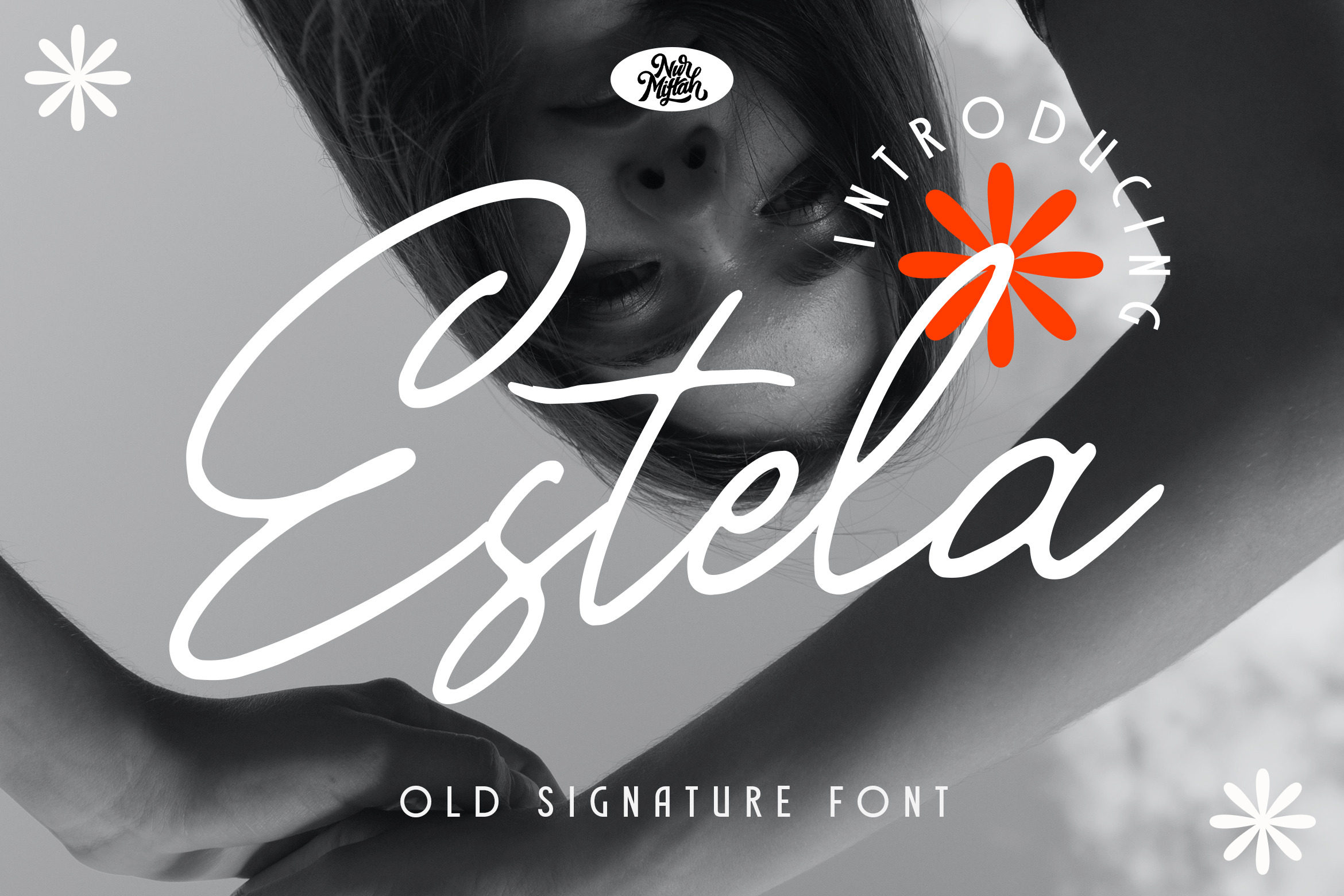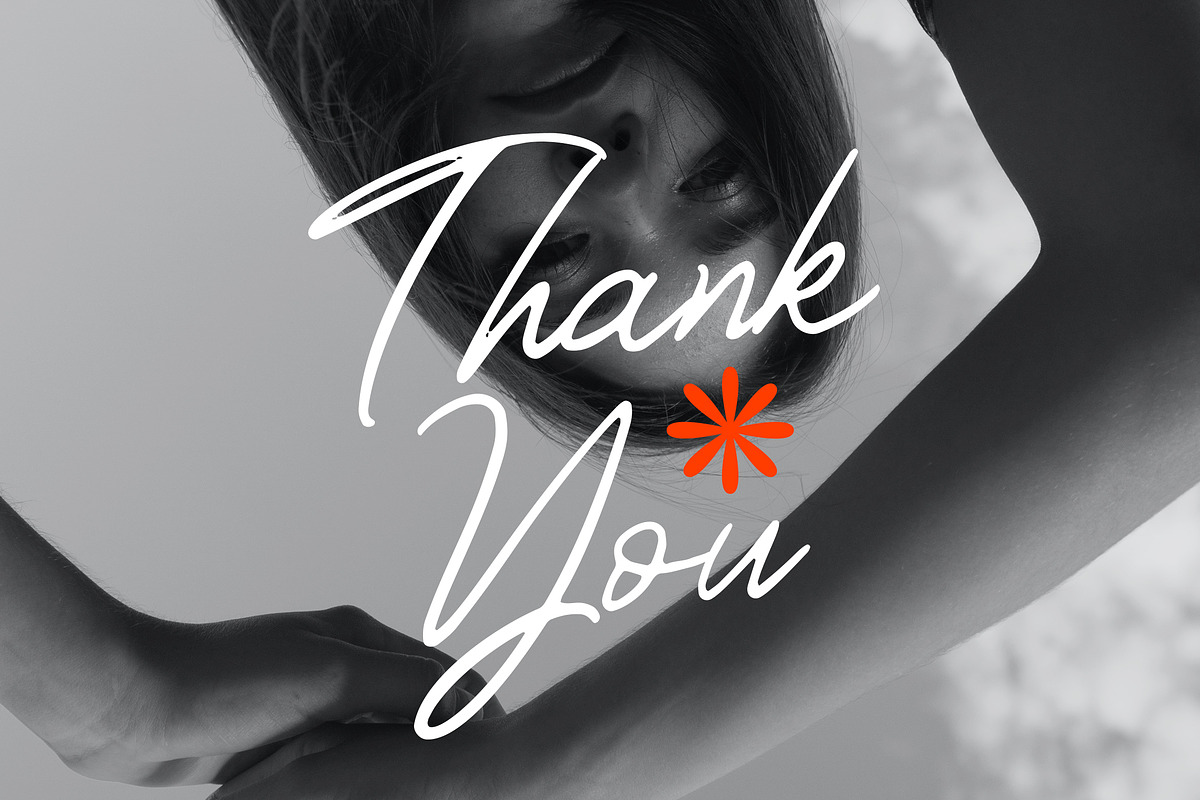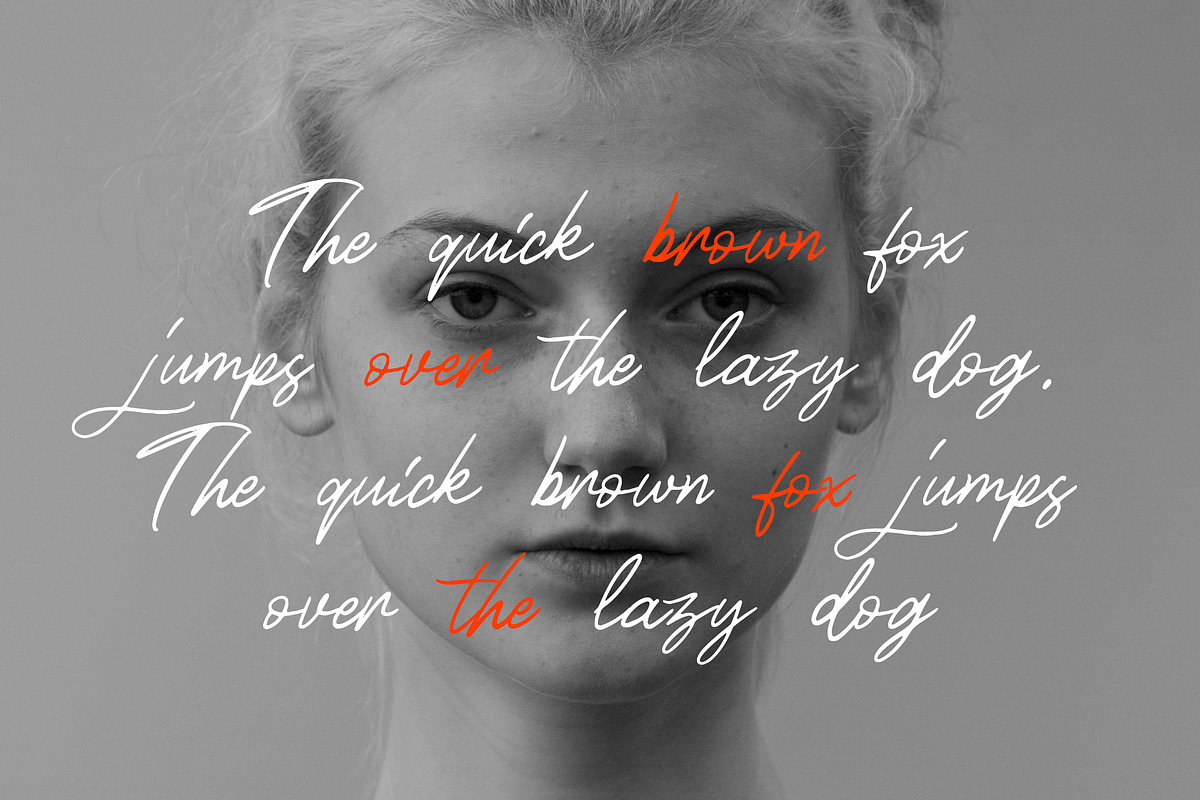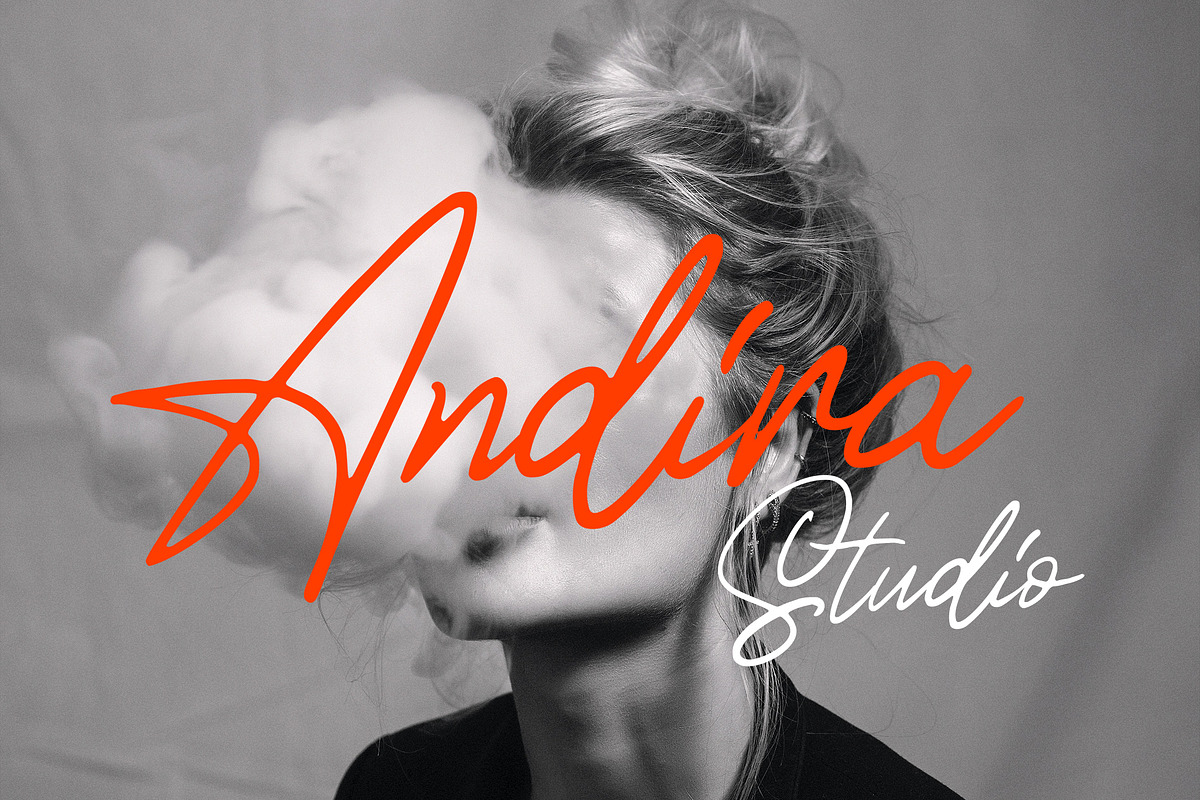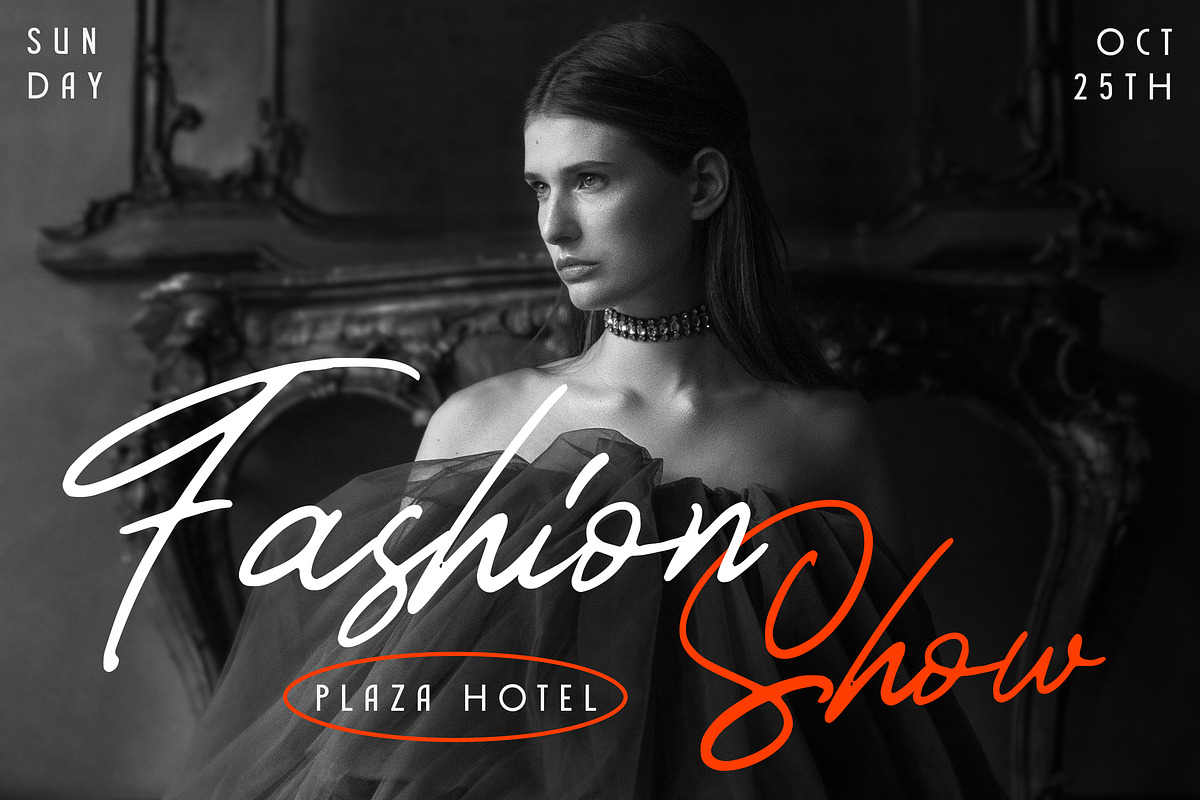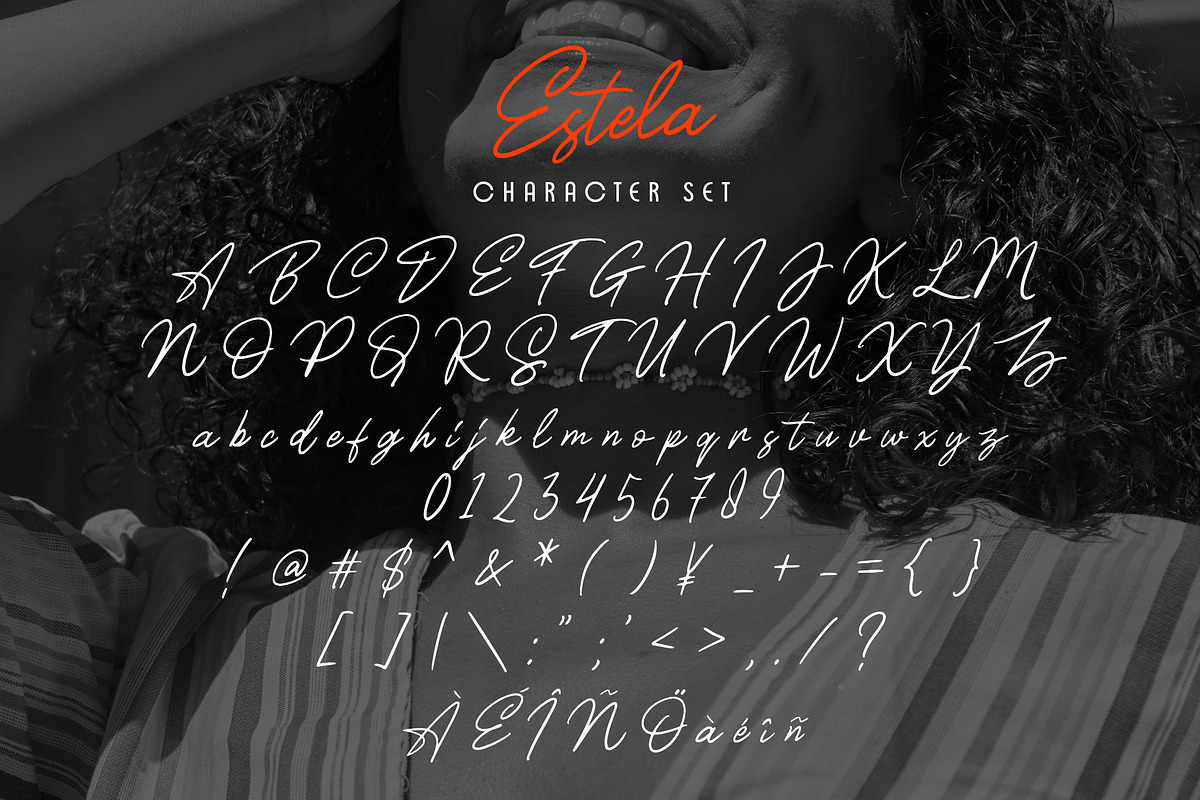
Estela - Old Signature Font
Estela Font can be used for various media like special events, invitation, packaging, poster, wedding, movie titles, book titles, social media, logos, branding, and others.
- Stylistic Set